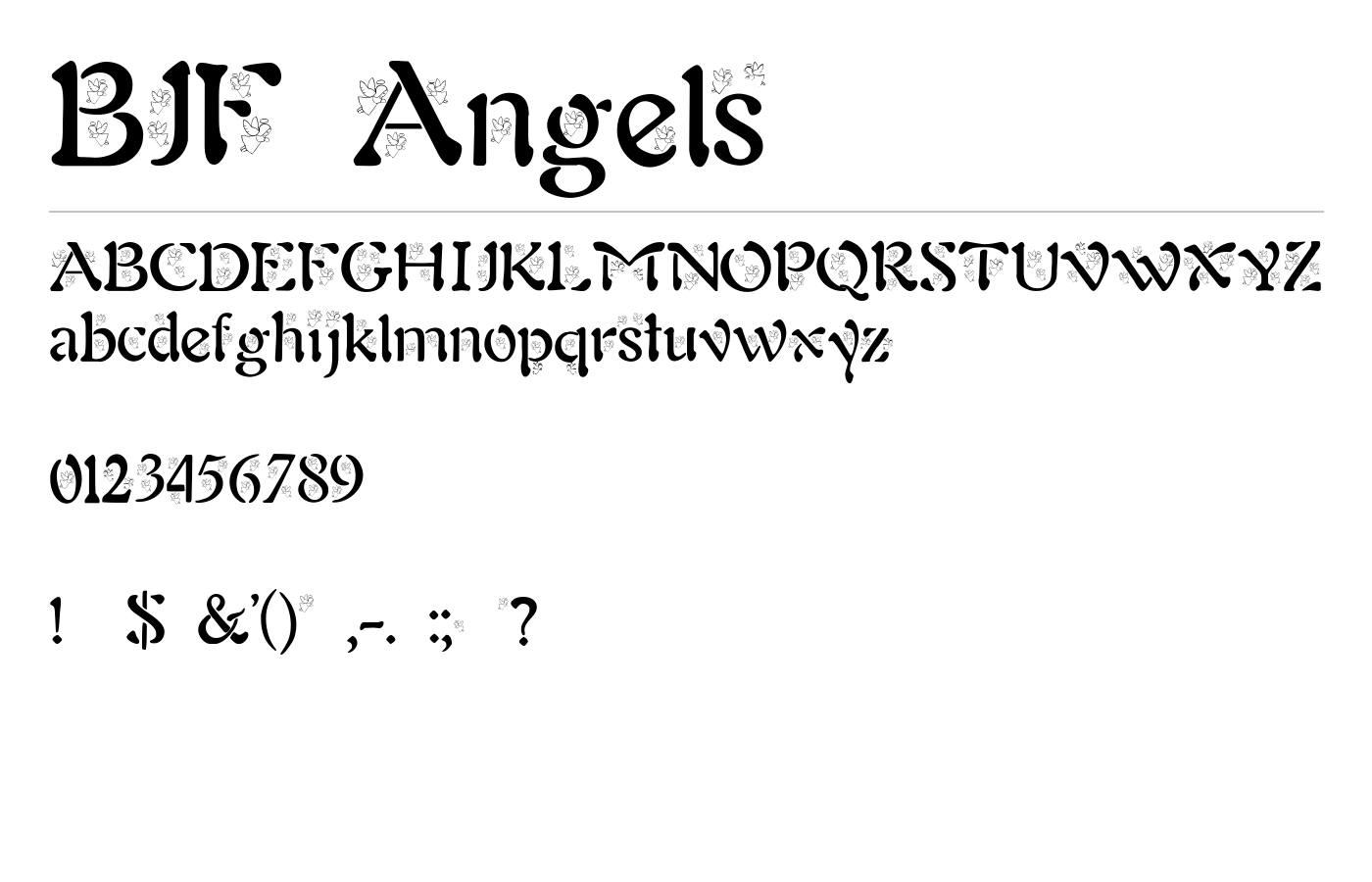
BJF Angels is a decorative serif font with a vintage flair, featuring high contrast strokes and unique, sharp serifs that give it an elegant yet playful personality. Its distinct letterforms, such as the pointed terminals and the stylized ampersand, make it ideal for eye-catching headlines, logos, and themed designs that require a touch of charm and sophistication. This font works best in creative projects that want to evoke a nostalgic or whimsical mood while maintaining a strong visual presence.
BJF Angels Font
About BJF Angels Font